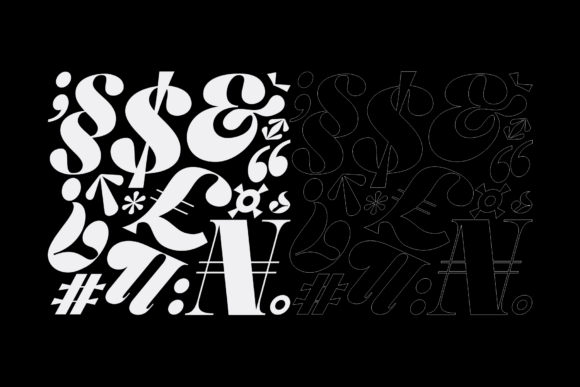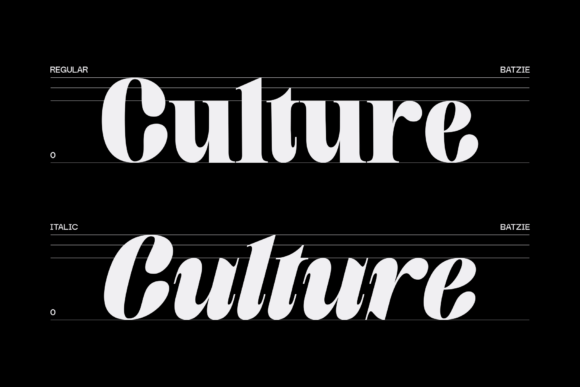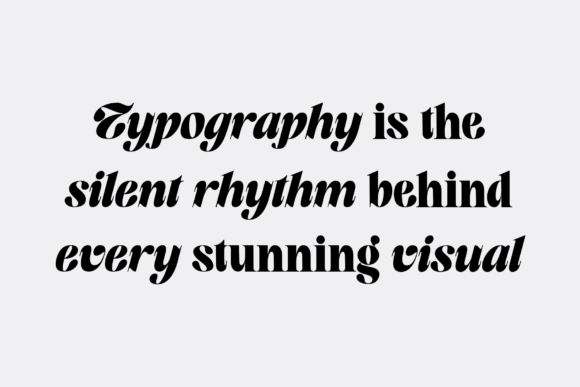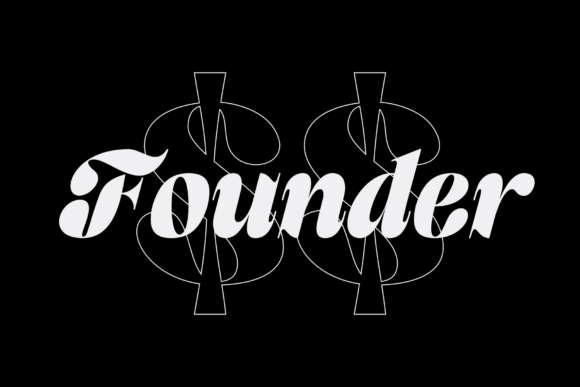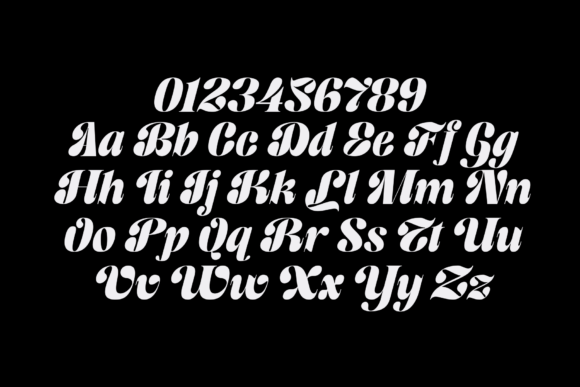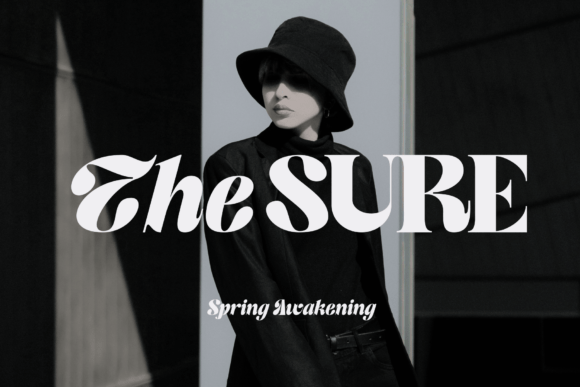
Introduction to Batzie Font Font
Fonts play a crucial role in design, and the Batzie Font font is a typeface that brings both character and versatility to any project. Whether you’re working on a branding project, a website, or a print design, the Batzie Font font offers a unique style that can elevate your work.
Batzie is a refined and modern serif display font that radiates elegance, femininity, and grace.
Its flowing letterforms are shaped by gentle curves, delicate terminals, and soft transitions that echo the rhythm of graceful handwriting Carefully balanced strokes—neither too thin nor too bold—ensure exceptional legibility while maintaining a sophisticated aesthetic.
Why Choose Batzie Font Font?
The Batzie Font font is more than just a typeface – it’s a design tool that helps you communicate your message with style and clarity. Its unique character set and versatile design make it suitable for a wide range of applications, from elegant invitations to bold headlines.
With its carefully crafted letterforms and balanced proportions, the Batzie Font font ensures readability and visual appeal across all mediums.
What makes Batzie Font font special?
The Batzie Font font stands out with its unique design, exceptional readability, and versatility across various design applications.